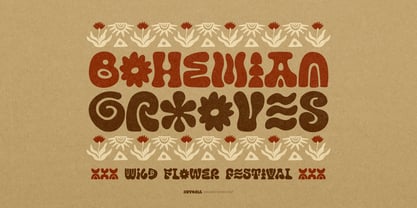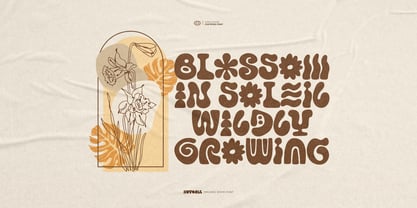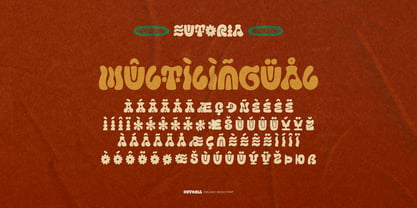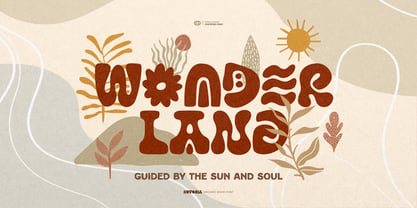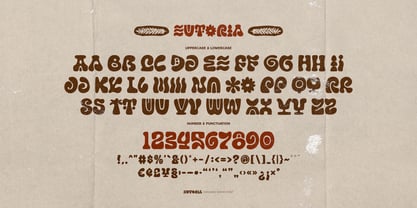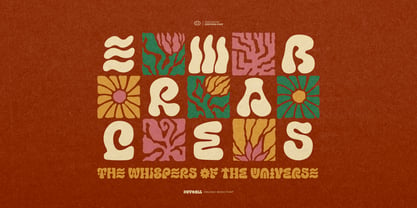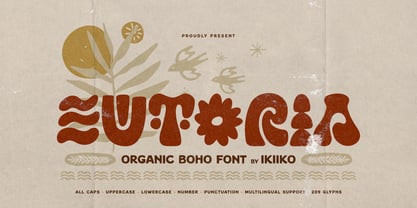
Eutoria
by IKIIKOWRK
The Eutoria Font Family was designed by Andhika Pradana and published by IKIIKOWRK. Eutoria contains 1 styles. More about this family
Proudly Present Eutoria - Organic Boho Font, created by ikiiko Eutoria is a bold expression of bohemian soul—a handcrafted typeface that blends organic flow with edgy, hipster energy. Inspired by natural forms, tribal rhythms, and ethnic symbols, every curve feels alive, imperfect, and intentionally raw. Designed with a handcraft spirit, Eutoria captures the beauty of the natural world—sun-soaked textures, wild florals, and free-spirited movement. Its shapes echo tribes and ethnic artistry, creating a visual language that feels both ancient and modern, grounded yet expressive. This font isn’t just typography—it’s a symbol of soul and freedom. Perfect for creators who want to stand out with a bold, organic, and artistic voice, Eutoria brings an effortlessly boho aesthetic to branding, packaging, posters, and social media. What's Included? All Caps : Uppercase & Lowercase Numbers & Punctuation Multilingual Support Works on PC & Mac Get also a good offer & FREEBIE at our site Enjoy our font and if you have any questions, you can contact us by email
Designers: Andhika Pradana
Foundry: IKIIKOWRK